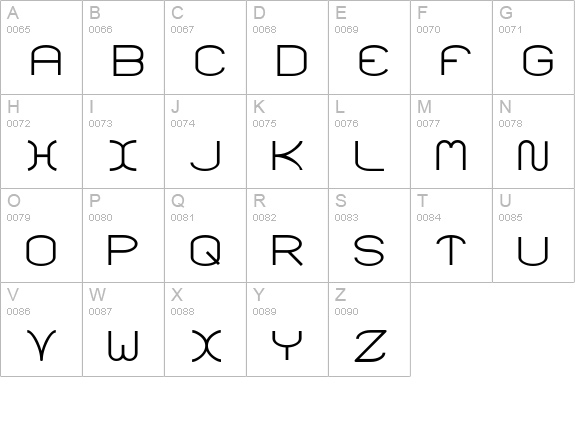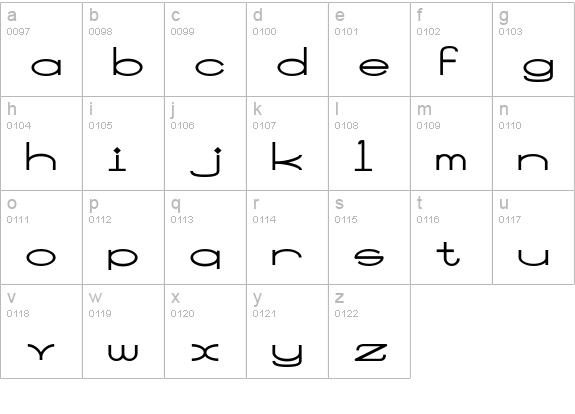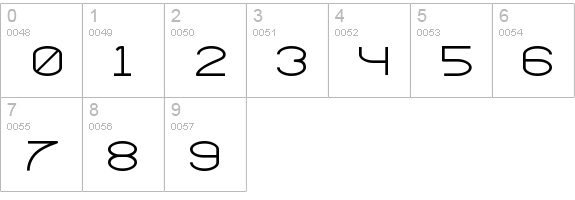
SantaMonicaMF Font Details
Introducing SantaMonicaMF, a stunning font that effortlessly combines elegance with a touch of modernity. This versatile typeface is perfect for any design project that requires a hint of sophistication and charm. With its clean lines and beautifully crafted letterforms, SantaMonicaMF adds a touch of class to any text, making it ideal for invitations, branding, logos, and more. Its wide range of weights and styles allows for endless creative possibilities, ensuring that your designs stand out from the crowd. But what sets SantaMonicaMF apart is not just its impeccable design; it's also the fact that it is available for free! Yes, you heard it right. This remarkable font can be freely downloaded at FontsMarket.com, giving you the opportunity to elevate your designs without breaking the bank. Whether you're a professional designer looking to add a fresh font to your collection or a creative enthusiast seeking to enhance your personal projects, SantaMonicaMF is the perfect choice. Its timeless appeal and free availability make it a must-have font for any design lover. So why wait? Unlock the potential of your designs and download SantaMonicaMF today, exclusively at FontsMarket.com. Embrace elegance and creativity without spending a dime!